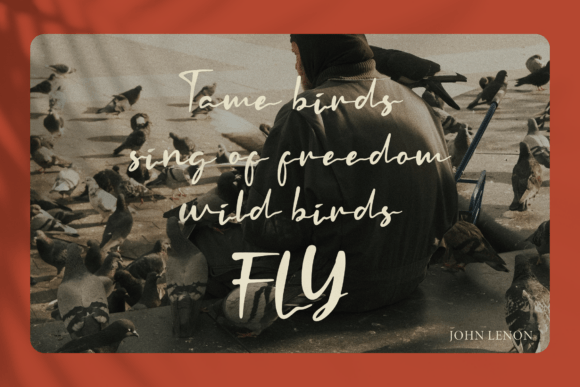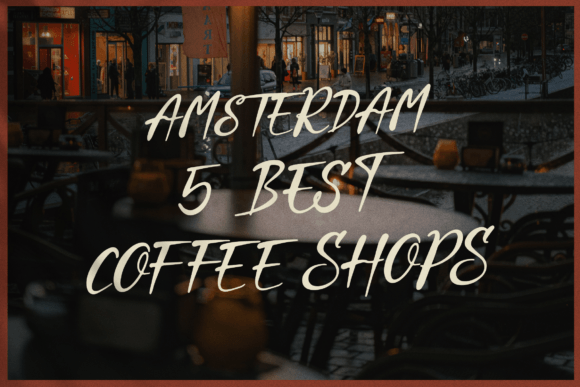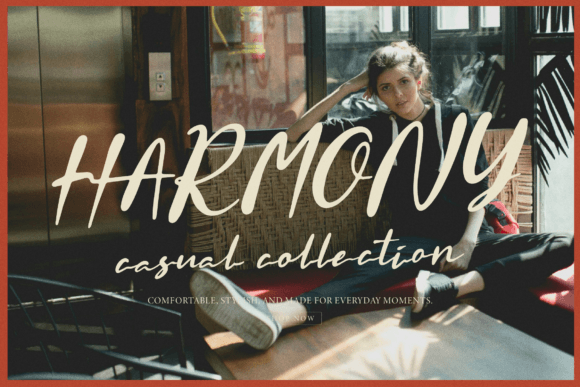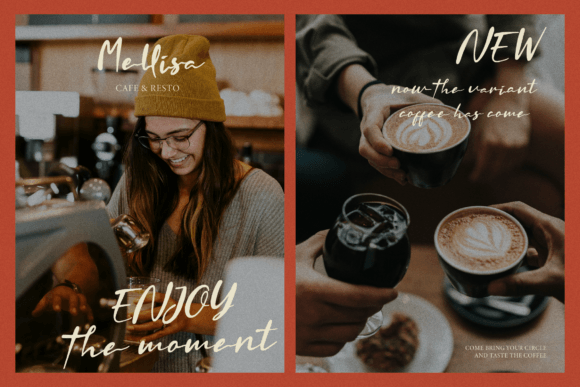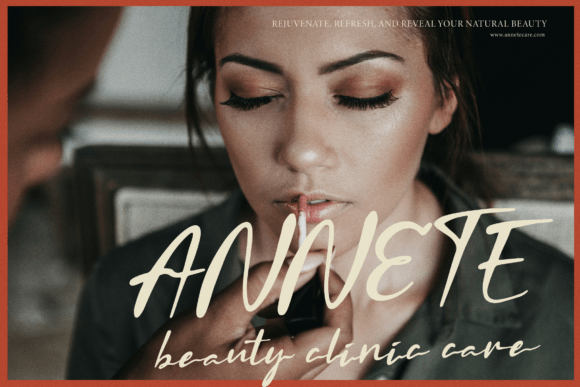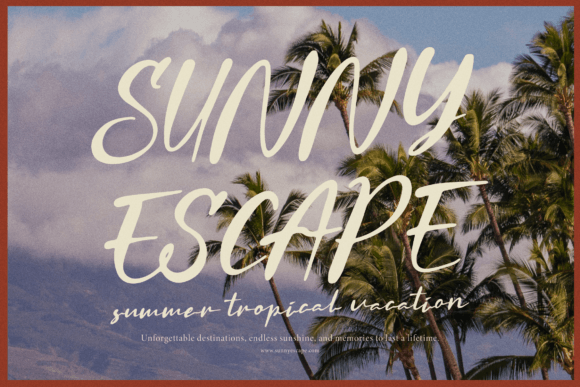
Introduction to Last Knotes Font
Last Knotes is a gorgeous handwritten font, suitable for any projects such as: logos, branding projects, homeware designs, product packaging, mugs, quotes, posters, shopping bags, t-shirts, book covers, name card, invitation cards, greeting cards, label, photography, watermark, special events, and all your other lovely projects that need a Hand Drawn Script taste.
Key Features of Last Knotes Font
Why Choose Last Knotes Font?
Last Knotes Font offers exceptional quality and versatility, making it a valuable addition to your design toolkit. Whether you’re creating for personal projects or commercial use, Last Knotes Font delivers professional results.